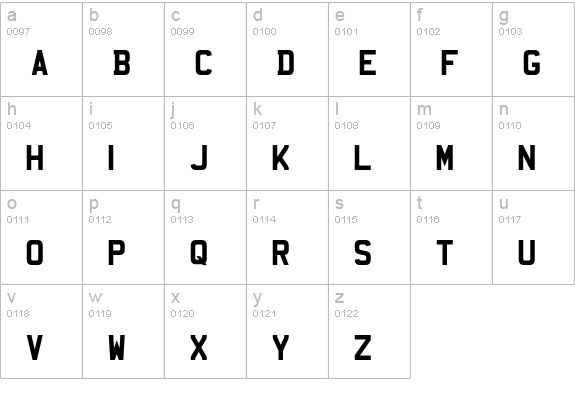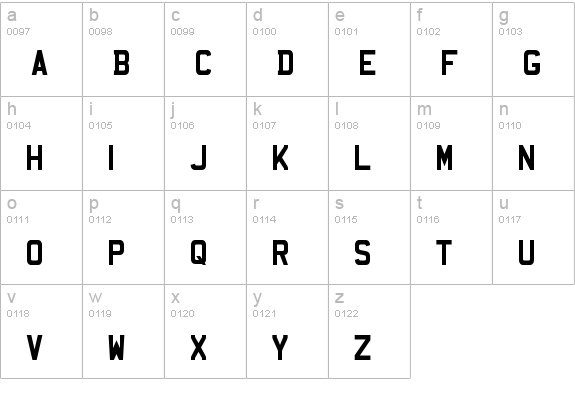
Mandatory Font Details
Introducing Mandatory, a stunningly versatile font that embodies both elegance and modernity. With its clean lines and distinctive curves, Mandatory is the perfect choice for a wide range of design projects. Whether you're creating a sleek logo, designing a captivating website, or crafting eye-catching social media graphics, this font will effortlessly elevate your work to new heights. What sets Mandatory apart is its incredible flexibility. From bold headlines to subtle body text, this font adapts seamlessly to any typographic need. Its carefully crafted letterforms ensure optimal readability, while its refined aesthetic adds a touch of sophistication to your designs. With a vast array of weights and styles to choose from, you'll have endless possibilities to explore and create. And the best part? Mandatory is free! That's right, you can download this exceptional font without spending a dime. Simply head over to FontsMarket.com and discover the world of possibilities that await you. Whether you're a professional designer or a creative enthusiast, Mandatory is here to help you bring your vision to life. Don't miss out on this incredible opportunity to enhance your design toolbox. Download Mandatory today and unleash your creativity like never before. Let this font be the catalyst for your next iconic project.